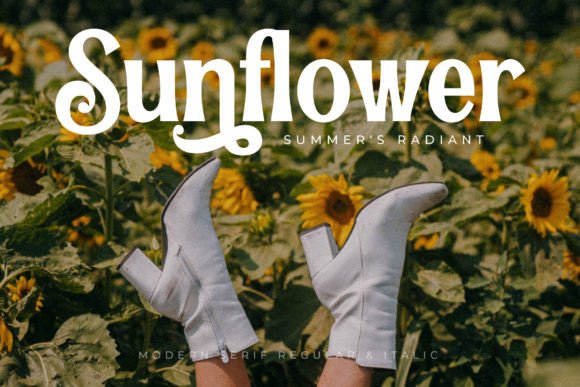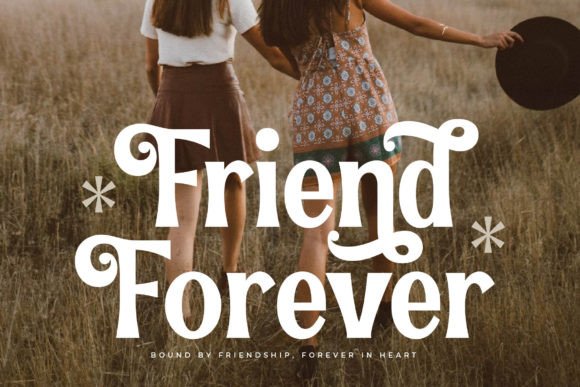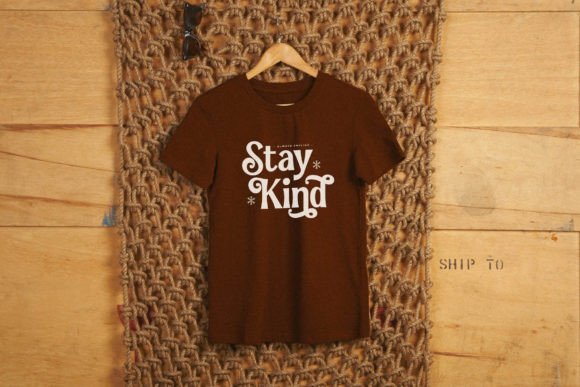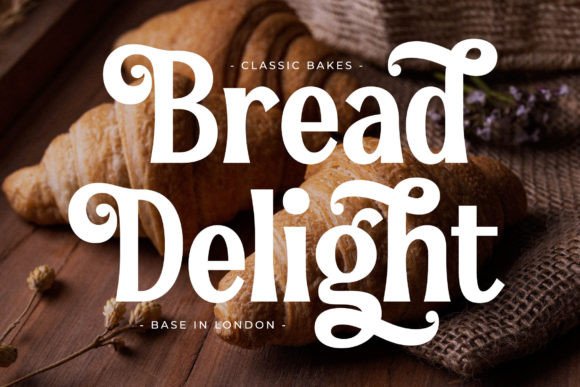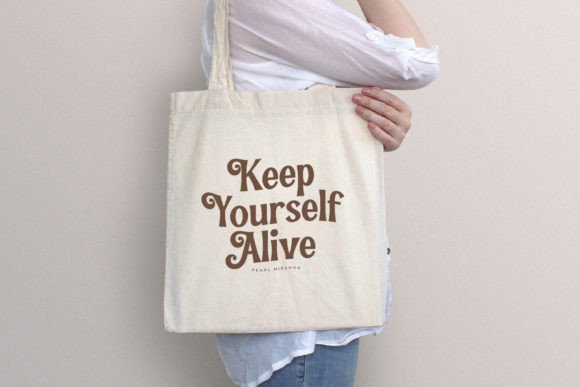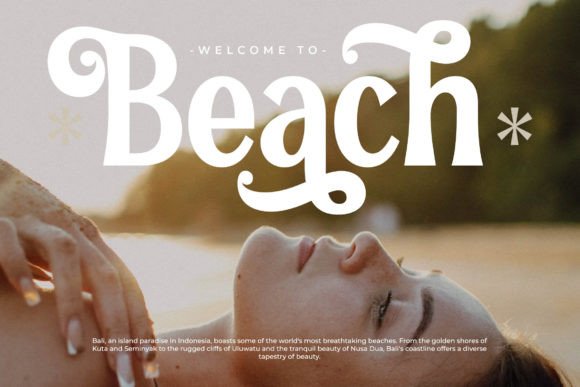
Introduction to Pearl Hirenha Font
Pearl Hirenha, a uniquely stylish serif font, stands out with its distinctive and sophisticated design.
Elegant serifs and graceful letterforms create a harmonious balance, infusing a touch of luxury Ideal for projects that demand a refined and memorable typeface, Pearl Hirenha elevates any design with timeless sophistication.
Key Features of Pearl Hirenha Font
Why Choose Pearl Hirenha Font?
Pearl Hirenha Font offers exceptional quality and versatility, making it a valuable addition to your design toolkit. Whether you’re creating for personal projects or commercial use, Pearl Hirenha Font delivers professional results.